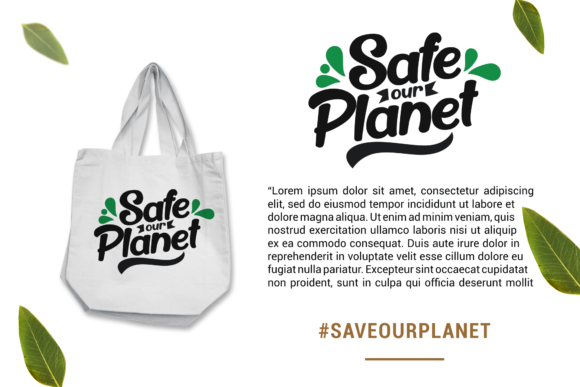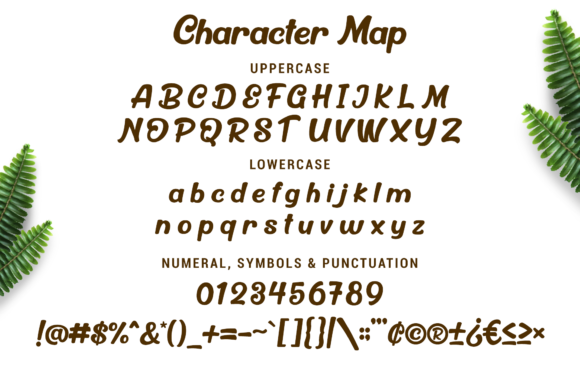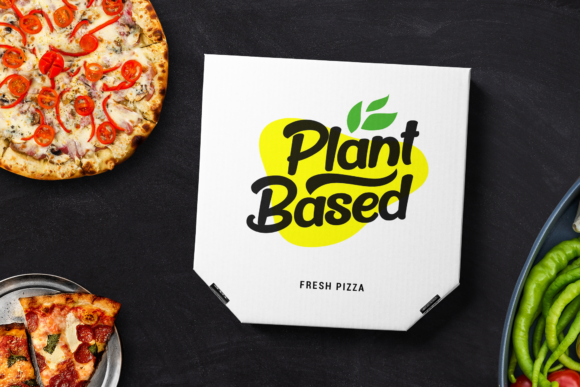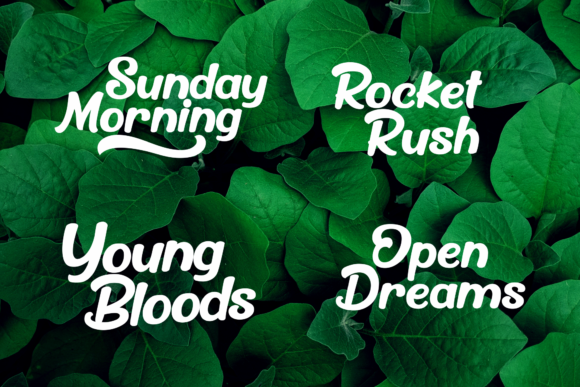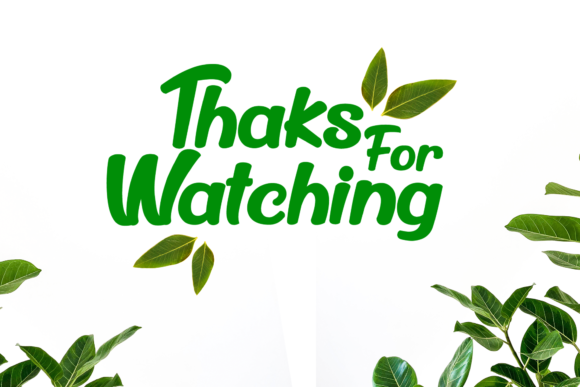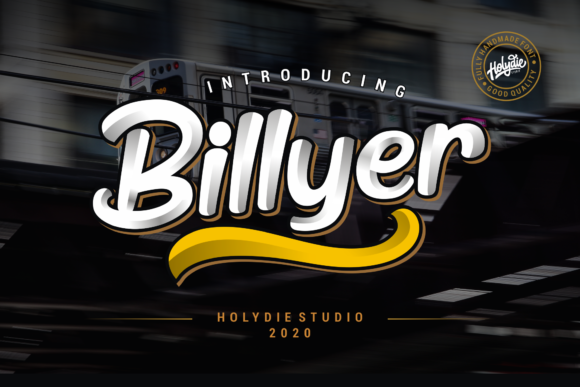
Billyer Font: The Ultimate Display Font for Creative Projects
Are you tired of using the same old fonts for your design projects? Look no further than the Billyer Font, a fully handmade display font that’s sure to add a touch of fun and boldness to your work. With its unique and eye-catching letters, Billyer is perfectly suited for a wide variety of projects, from crafting and DIY tutorials to branding and advertising campaigns.
What Makes Billyer Font So Special?
Billyer Font is a one-of-a-kind display font that’s been carefully crafted by hand to give it a truly unique and playful feel. Its bold and fun letters are sure to grab attention and make your designs stand out from the crowd. Whether you’re working on a logo, brochure, or social media graphic, Billyer Font is the perfect choice for adding a touch of personality and whimsy to your work.
Key Features of Billyer Font
- Fully Handmade: Billyer Font is a fully handmade display font, crafted with love and care to give it a unique and personal touch.
- Fun and Bold Letters: The font features fun and bold letters that are sure to add a touch of personality to your designs.
- Versatile: Billyer Font is perfectly suited for a wide variety of projects, from crafting and DIY tutorials to branding and advertising campaigns.
Billyer Font is a dream come true for designers and crafters who are looking for a unique and versatile font to add to their toolkit. Whether you’re working on a commercial project or a personal craft, Billyer Font is the perfect choice for adding a touch of fun and personality to your work.
For designers, Billyer Font offers a wide range of creative possibilities, from bold and eye-catching headlines to playful and whimsical typography. And for crafters, the font is perfect for creating handmade cards, gift tags, and other paper crafts.
Tips for Using Billyer Font
- Use it as a Headline Font: Billyer Font is perfect for use as a headline font, adding a bold and eye-catching touch to your designs.
- Experiment with Colors: The font looks great in a wide range of colors, so don’t be afraid to experiment and find the perfect hue for your project.
- Pair it with Other Fonts: Billyer Font pairs well with a wide range of other fonts, so feel free to get creative and experiment with different combinations.